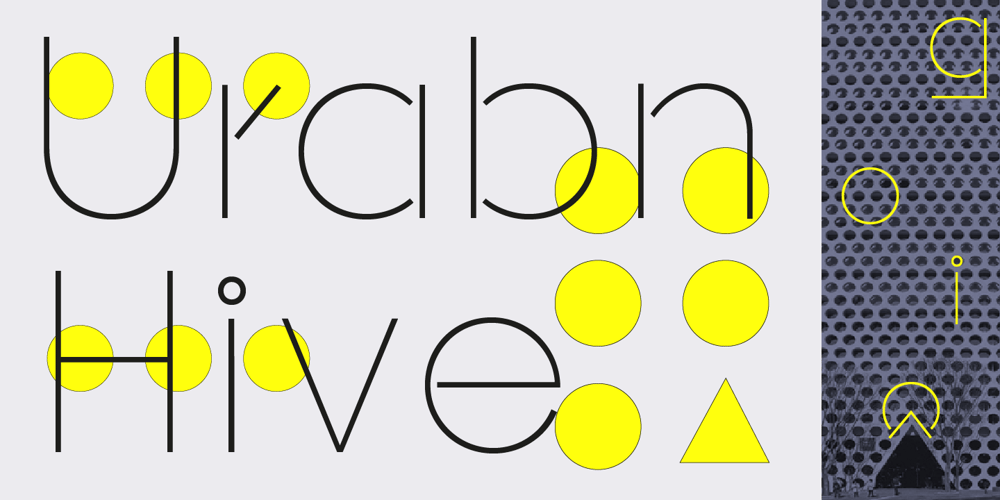
Urbanhive Font Family was designed by Jaeyi Son and published by Jaetwo Type. Urbanhive contains 1 styles and family package options. Urban Hive : reinterpreting three-dimension to the typefaceA blueprint consists of two-dimensional elements changes into a three-dimensional structure. What works would be created by reversing the process? The building components were divided into three parts : Facade, Inside space and Construction materials to apply all the features to the typeface. This is Facade version.